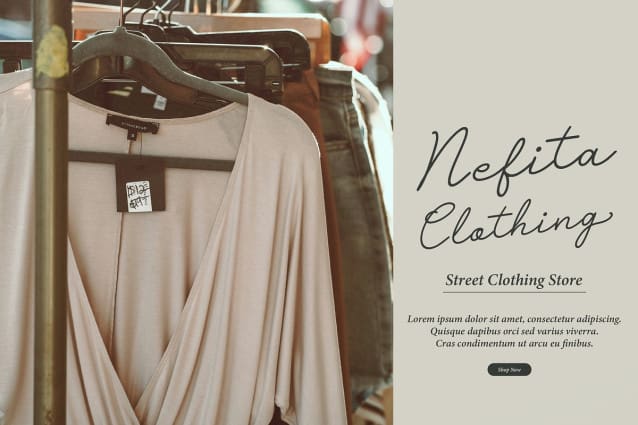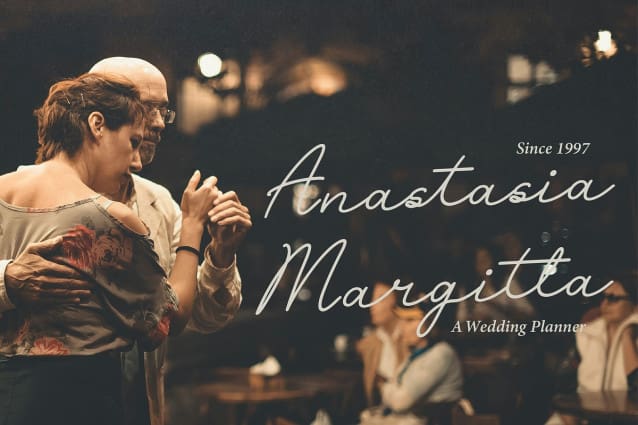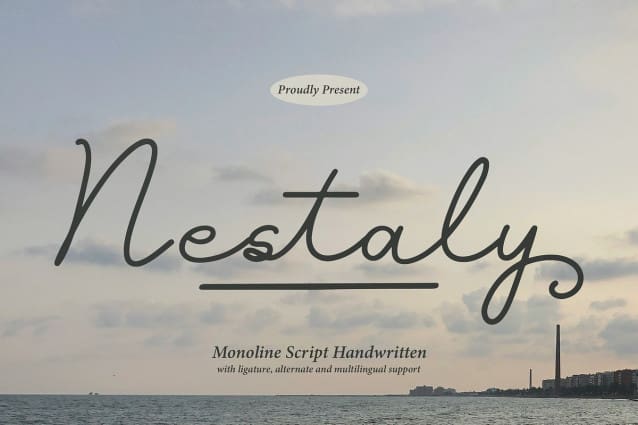
Nestaly Monoline Font
Nestaly Monoline Script Handwritten, from Gracetypestudio, suitable for any projects such as: logos, branding projects, homeware designs, product packaging, mugs, quotes, posters, shopping bags, t-shirts, book covers, name card, invitation cards, greeting cards, label, photography, watermark, special events, and all your other lovely projects that need a Monoline Script Handwritten taste.